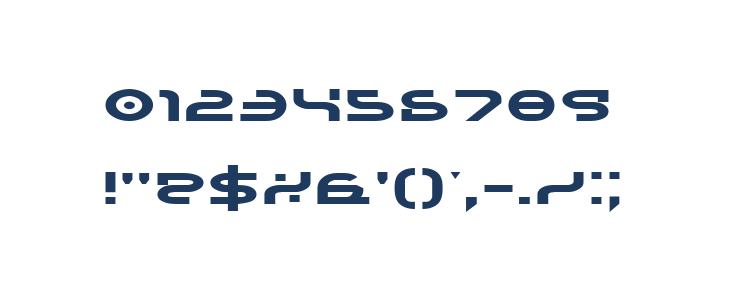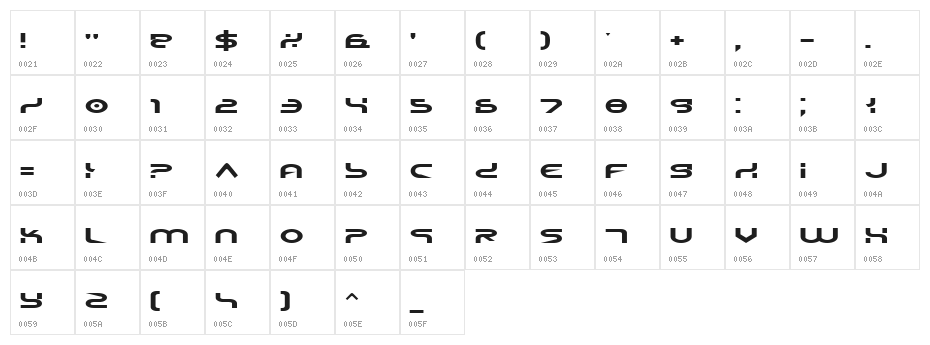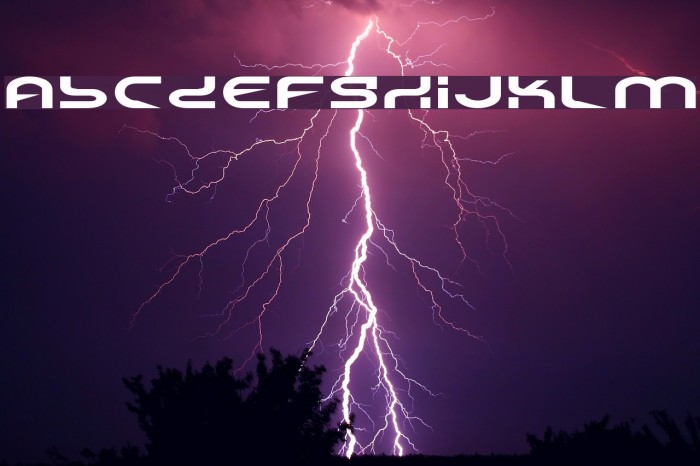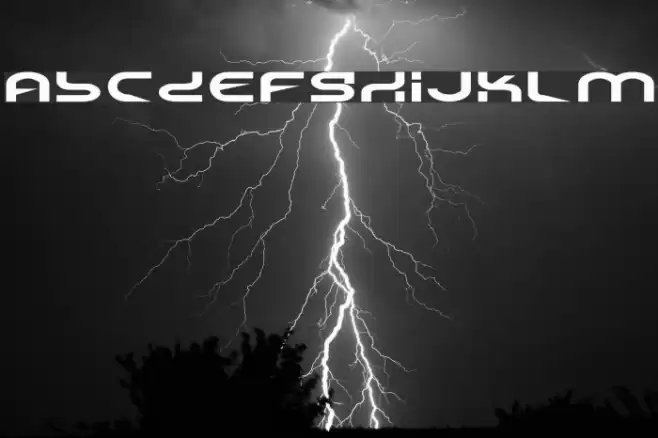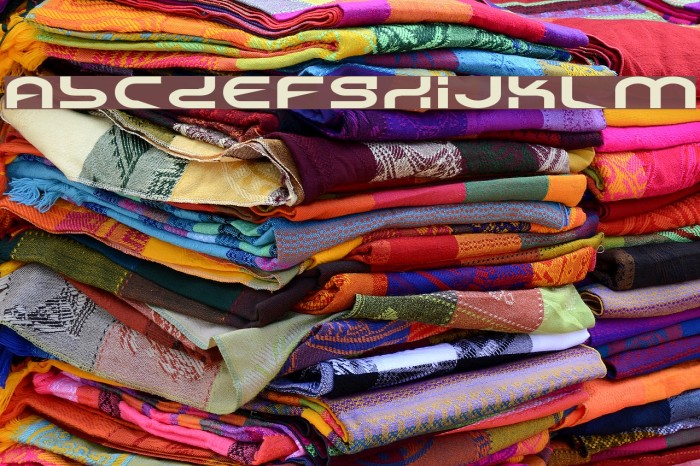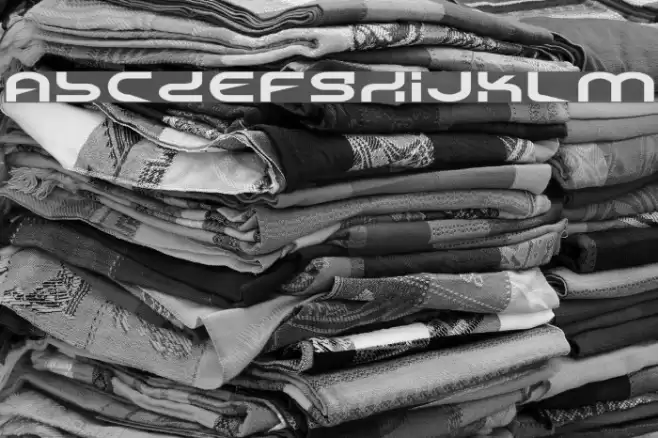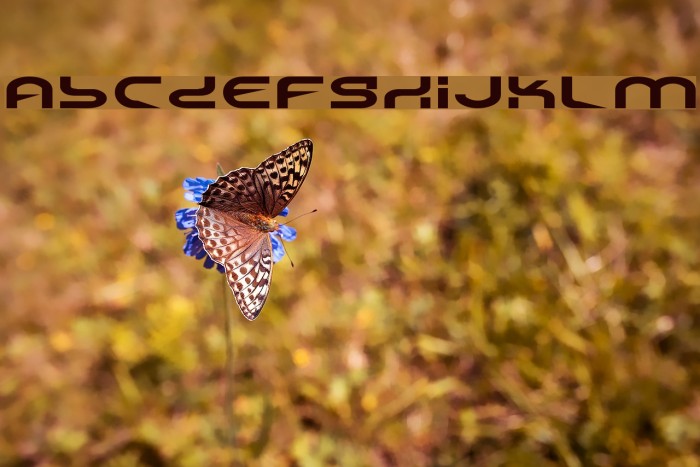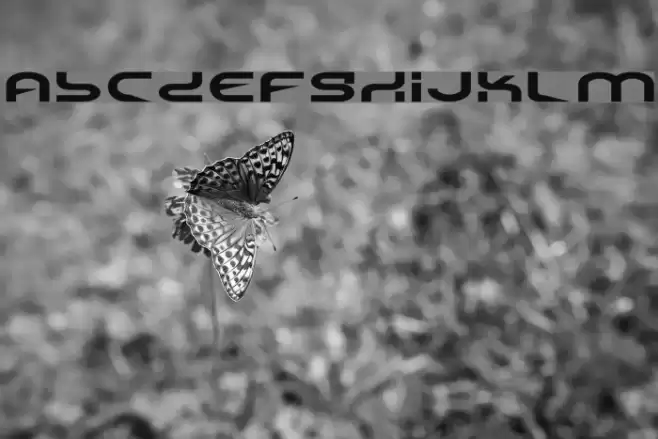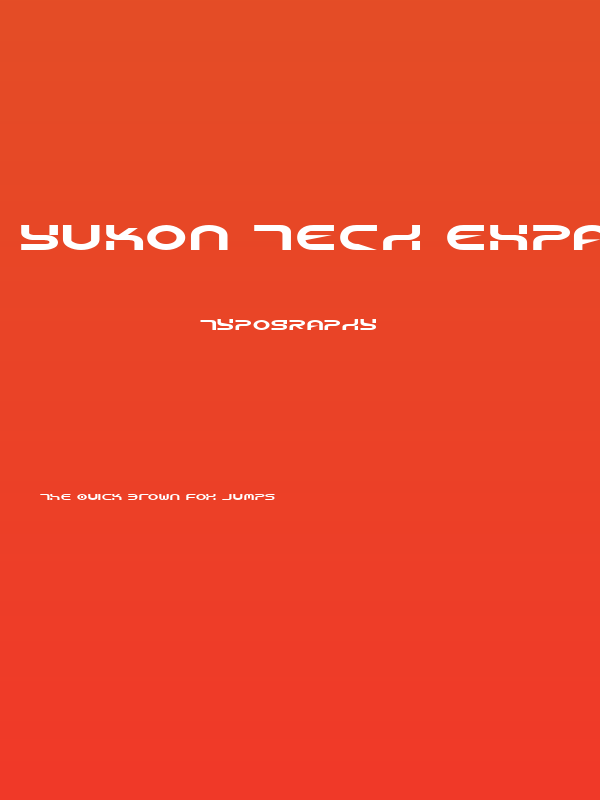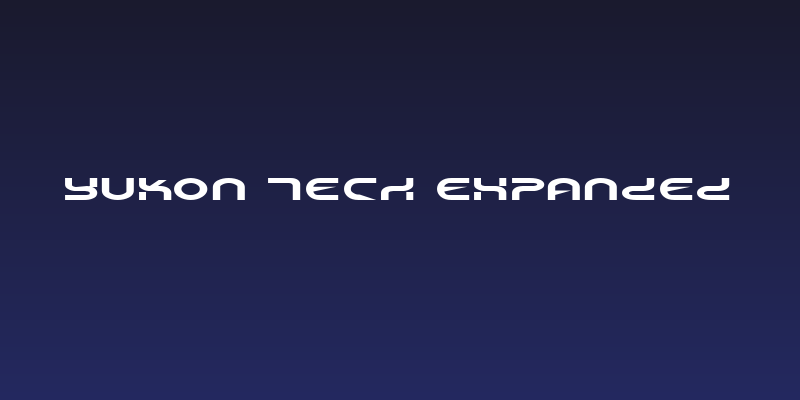
Yukon Tech Expanded Font
Yukon Tech Expanded Description
This font features a futuristic and geometric design, characterized by its bold and expanded letterforms. The characters exhibit a unique blend of sharp angles and smooth curves, creating a dynamic and modern appearance. The uppercase and lowercase letters maintain a consistent style, with a focus on symmetry and balance. The numerals and special characters are designed to complement the overall aesthetic, ensuring a cohesive look across all glyphs. This font's distinct style makes it suitable for projects that require a contemporary and tech-inspired feel.